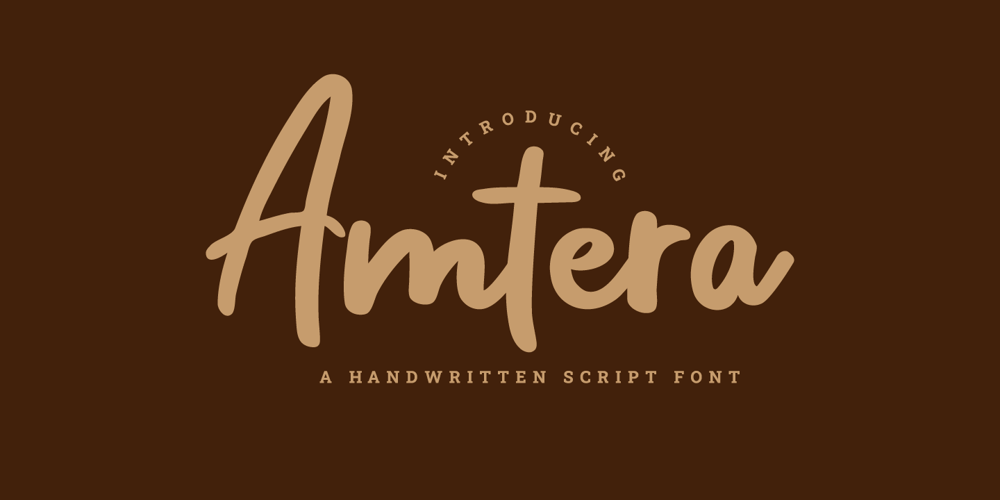
Amtera Font Family was designed by Prio Nurokhim Aji and published by Prioritype. Amtera contains 1 styles and family package options. Handwritten font with an elegant and minimalist impression are ready to accompany your project. Can be applied to business cards, social media posts, branding, wedding invitations, logos, photographer watermarks, food packaging, beauty products, crafts and many more. See some examples the preview above for reference.Features:-Uppercase-Lowercase-Numeral-Punctuation-Multilingual